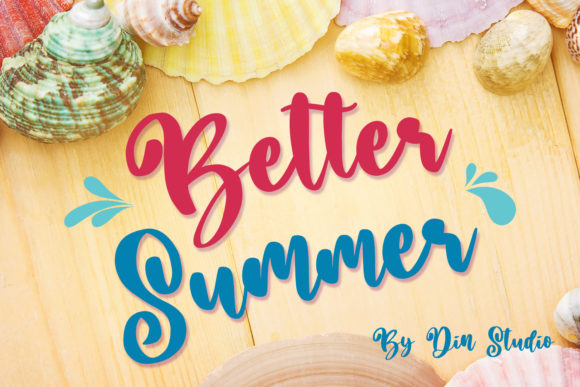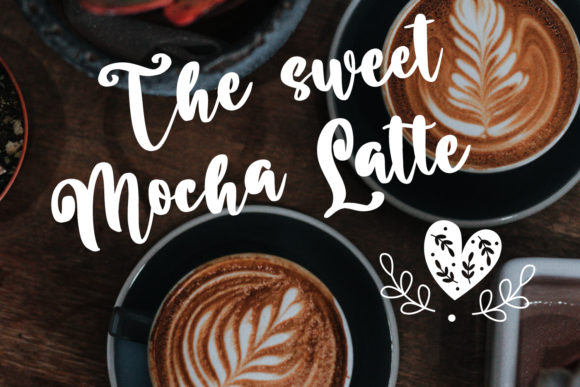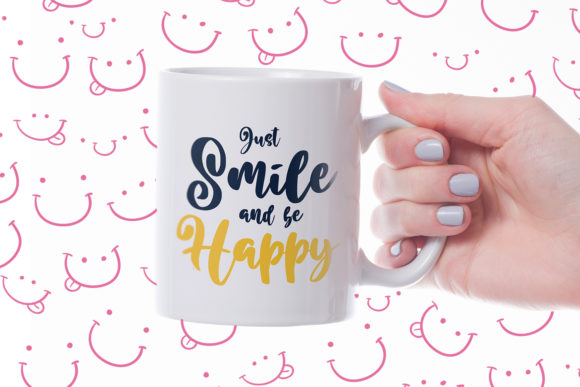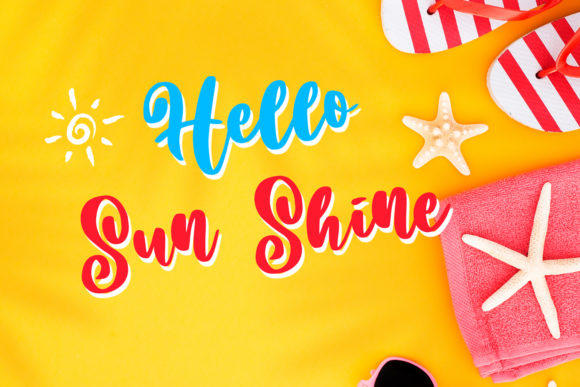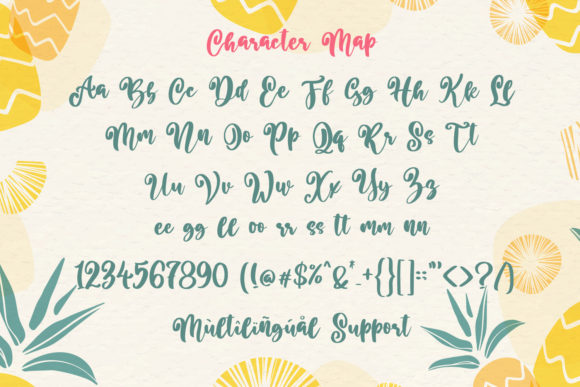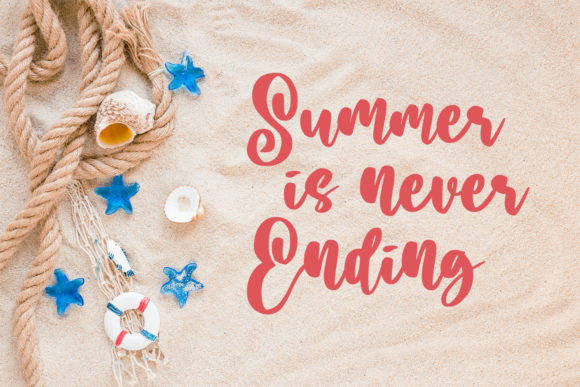
HomeScript FontsBetter Summer Script Font Script Fonts Better Summer Script Font FacebookXPinterestWhatsApp Better Summer Script Font Poster 2 Better Summer Script Font Poster 3 Better Summer Script Font Poster 4 Better Summer Script Font Poster 5 Better Summer Script Font Poster 6 Better Summer Script Font Poster 7 About Better Summer Script Font Better Summer is a fun and cool script with a summery feel. DOWNLOAD NOW People also explored Gloria Font Vibes Today Font Pointone Font Alysha Font Trickiest Font Popsky Wolnoet Font Relation Font Croonicle Font 333 0 TagsBetter Summer Script Font Previous articleThe Mercury FontNext articleBlue Rose Script Font LEAVE A REPLY Cancel reply Comment: Please enter your comment! Name:* Please enter your name here Email:* You have entered an incorrect email address! Please enter your email address here Website: Save my name, email, and website in this browser for the next time I comment. Personal Use Free A New Nattyla Personal Use Free Read more about this font Edo SZ Personal Use Free Read more about this font Alista Font Personal Use Free Read more about this font Airmole Personal Use Free Read more about this font BLOG Fonts That Capture the Spirit of New York City New York City is more than just a place—it’s an experience, a rhythm, a visual language... Free Fonts Risk: Why Free Fonts Can Be Dangerous for Designers Best Fonts for T-Shirt Design – Top 2025 Picks How to Cut Any Font on Cricut: Convert a Font to SVG (Free)